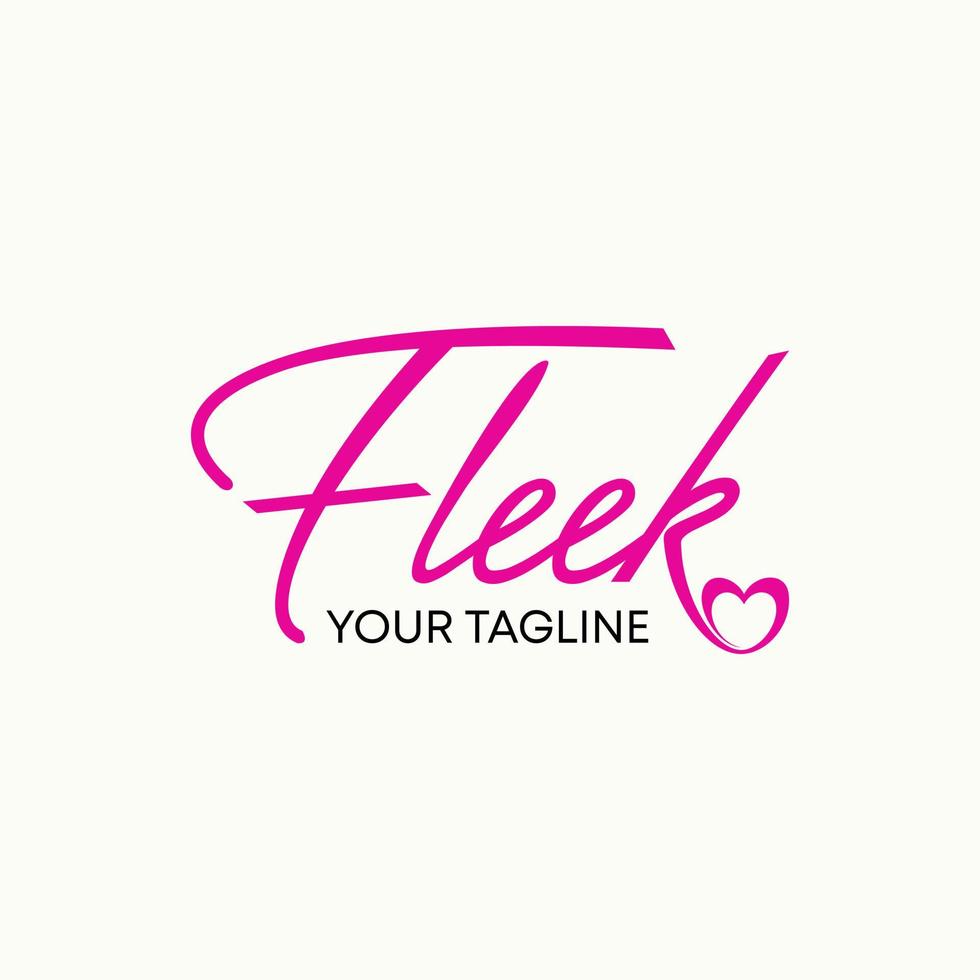
Simple and unique letter or word FLEEK handwritten font with love image graphic icon logo design abstract concept vector stock. Can be used as symbol related to initial or watermark Pro Vector